Our top 20 fonts for graphic designers will highlight the must-have typefaces every designer should know. We’ll uncover Zarma Type’s secret of creative necessities. Whether you’re building brand identities or crafting standout visuals, these fonts can elevate your work with versatility and impact.
These fonts provide the perfect foundation for creating eye-catching, effective, and memorable designs. Let’s take a look!
To add old vibes to your designs, use these fonts!
Despite adding modern sophistication in its letterforms, Bringbold Nineties still retains its thick nineties feel. Along with that, this font presents nostalgic, contemporary readability.
Balney uses script style with more blunt ends, creating an elastic illusion. Its rounded ends bring a fun, extravagant element into its retro concept, bringing exciting vibes to your project.
Bring instant vintage vibes with the staple monoline typography like Thourenz. Thourenz relieves and decorates the old-school typeface while offering 6 style options to fit your modern ideas.
Among vintage typography, Anerome offers a structured and cool persona. Anerome displays the authentic vintage look while adding new stylistic alternates and discretionary ligature glyphs.
Vonder can perfectly capture the bold, brush look with its imperfect lines and rough strokes. This all-caps font also displays sophisticated and decorated letterforms.
The high-tech and precise options are here.
\With the Nebulica family font, you can have a complete font selection of the same style. Nebulica exemplifies a brutalist and geometric look, bringing the rare monospaced letters into the mainstream.
Entuista is a chunky and squared typeface. This font also provides oblique orientation and extruding effect, just like the poster image. It merges contemporary and futuristic visuals, creating a timeless impact on your project.
The grotesque Galvitre depicts the almost ugly, minimalistic, and slightly quirky letterforms, but it sets itself apart with its stroke thickness transition. Also, the font imbues some flowy strokes for select letters.
Psygen is a rare, monospaced typeface with no-so-squared pixelated details. With a mix of 8-bit style and contemporary aesthetics, this playful and futuristic font is an attention-grabber for any design.
Apestron can perfectly capture that fast and high-tech look of a futuristic concept. The font displays a sleek, simplistic design and prioritizes continuity across letters.
To instantly add an exciting element to your design, use these fonts.
Banigar is a complete family of experimental typefaces with tall, simplistic letters. This font includes four styles, seven weight options, and three width selections that allow you to make a harmonious yet unique design.
Manteman is a monoline script font that can be a great complementary typeface to the bold and chunky fonts. Additionally, Manteman has consistent strokes and a vintage aura.
Among our top 20 fonts for graphic designers, Bulbis, the bubble font, deserves a spot with its bold and street looks. This font can be paired with the Y2K aesthetics or modern concepts.
Cloudy Peaches is the perfect font to fill up your design without overwhelming legibility. Its fresh splashes, fluid ligatures, and bouncy letterforms embody psychedelic and playful impressions in an organized way.
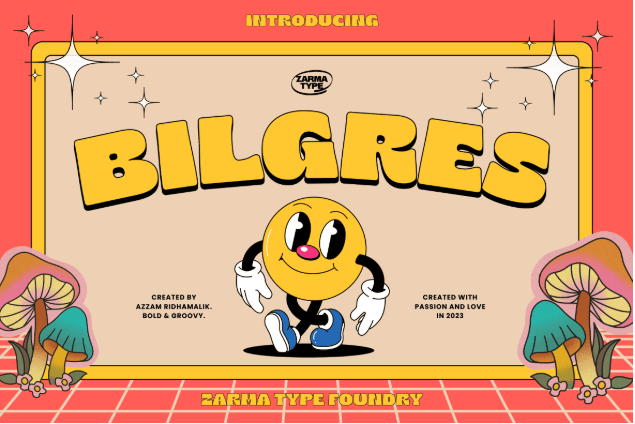
With its hippie visuals, Bilgres captivates your audience with its small features. Bilgres opts for the retro, bold letterforms while mixing vintage vibes with modern aesthetics.
A wild group where one-of-a-kind fonts have friends such as those below.
Nutgame is an ideal font for bringing a distinctive character to your design. It’s a sans-serif font at heart, but this font also embraces sophisticated elements with its sudden, sharp strokes.
Amiza is particularly made for the psychedelic concept. This flowy, blob-like font will absolutely steal the spotlight in your design.
Ayuga excels at bending and turning its lines into newly made letterforms. Its thick, ribbon-like stroke effortlessly creates new and uniquely cut letter visuals.
Trivenia is a display typeface with Medieval influence. Although using wide strokes, Trivenia is filled with fluid motions and twirls.
Lautren script and its reversed stroke are a great option to create an eye-catching hero text. This font exudes smooth summer vibes with a hint of luxurious touch.